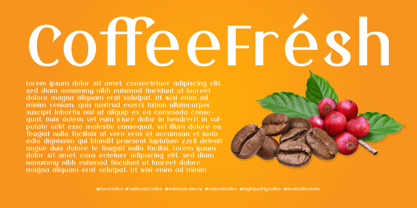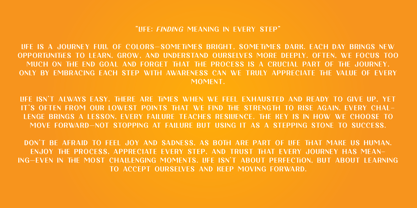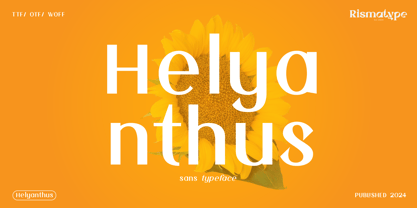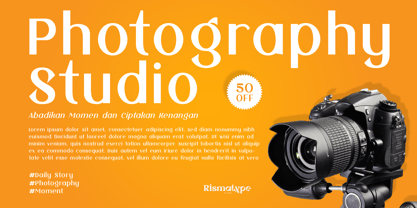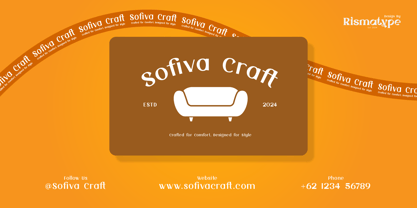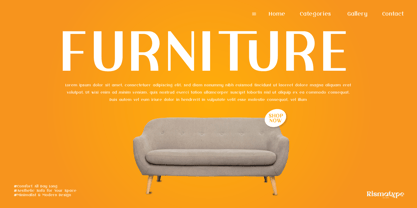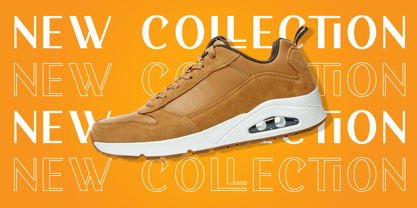
Helyanthus
✨ Helyanthus ✨
Elegant and Charming Sans Serif Typeface
Helyanthus is a serif display font crafted to convey timeless charm and elegance. Its refined curves and meticulous details make it the perfect choice for designs that seek both sophistication and impact, suitable for:
Branding & Logos: Create a memorable and refined impression. Editorial & Magazines: Enhance layouts with a polished, professional look. Invitations & Cards: Add a graceful touch to special occasions.
🌻 Make your designs bloom with every stroke of Helyanthus.
Let Helyanthus bring a blend of elegance and modern charm to your creations!